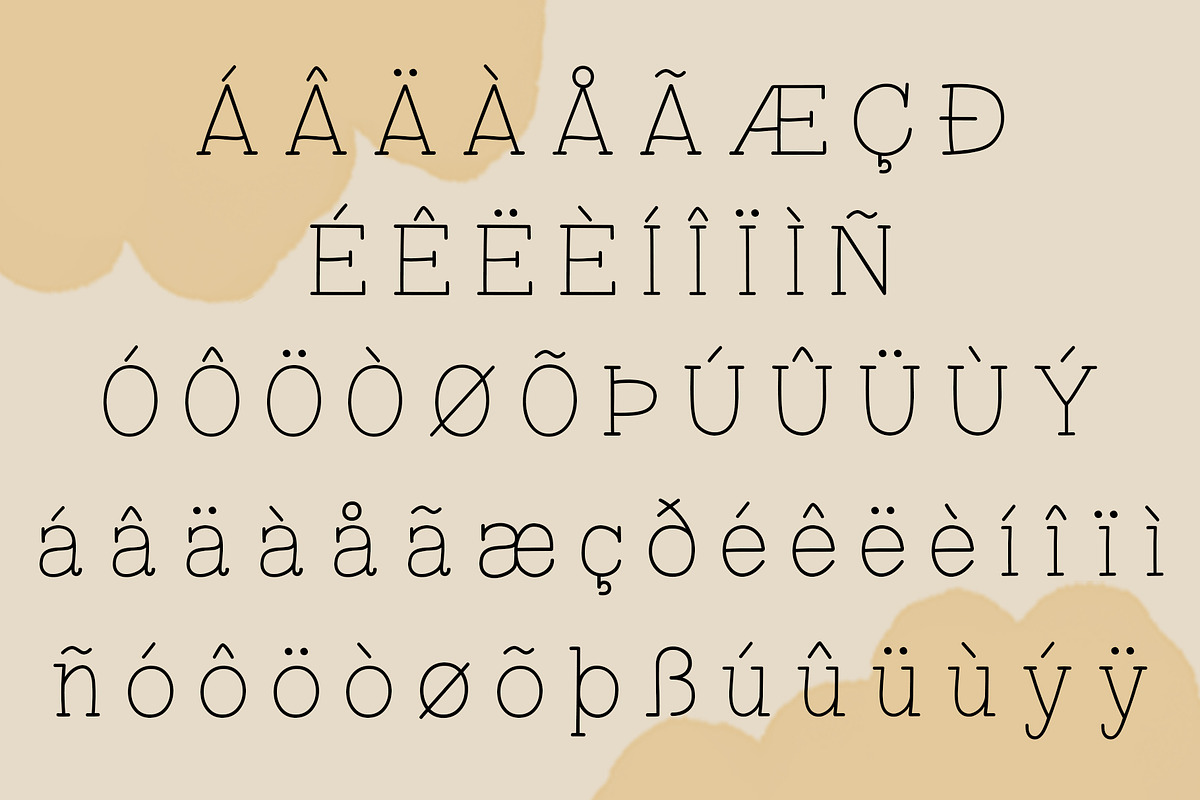
Tupelo Honey | A Charming Slab Serif
Tupelo Honey | A Charming Slab Serif Font Family
Create lovely bodies of text or headlines with tons of character. Tupelo Honey is a hand-drawn slab serif font with imperfect details that give it a unique and charming touch. Create posters, logos, package labels, stationary and more.
- Uppercase Characters
- Lowercase Characters
- Numbers and Some Fractions
- Multilingual support for various languages including: French, German, Spanish, Portuguese, Italian, Swedish, and more.
- Three font weights: Regular, Bold, and Extra Bold